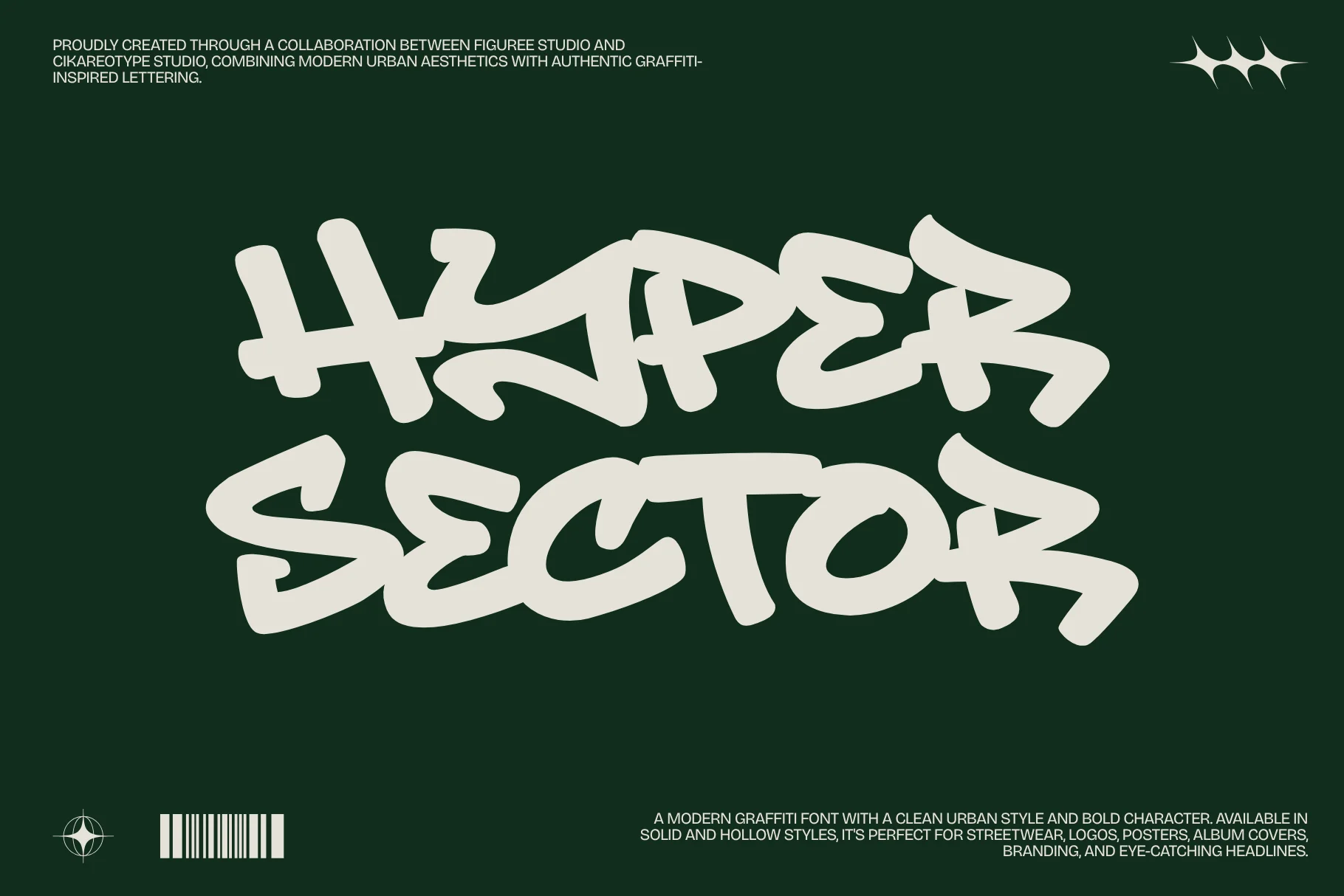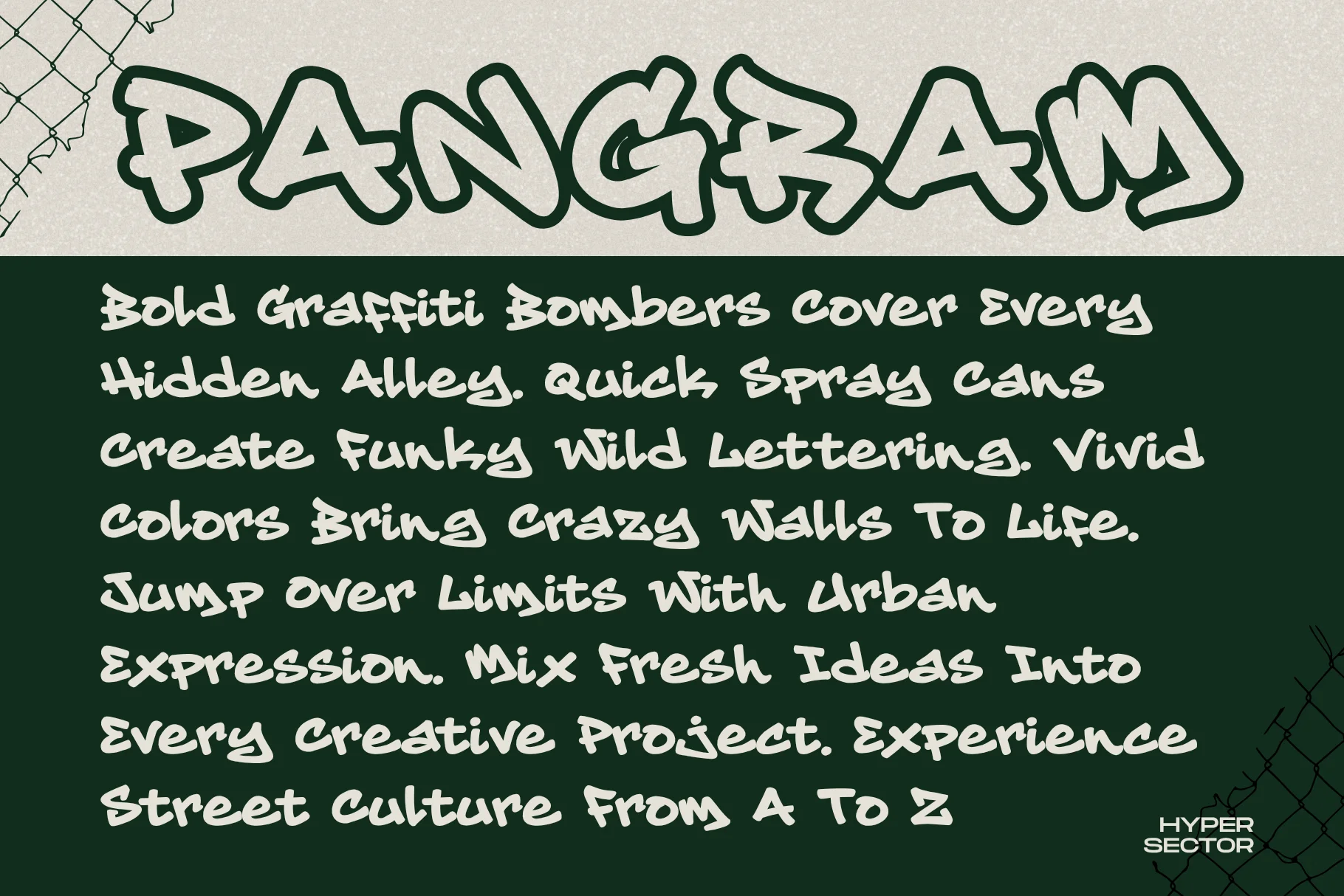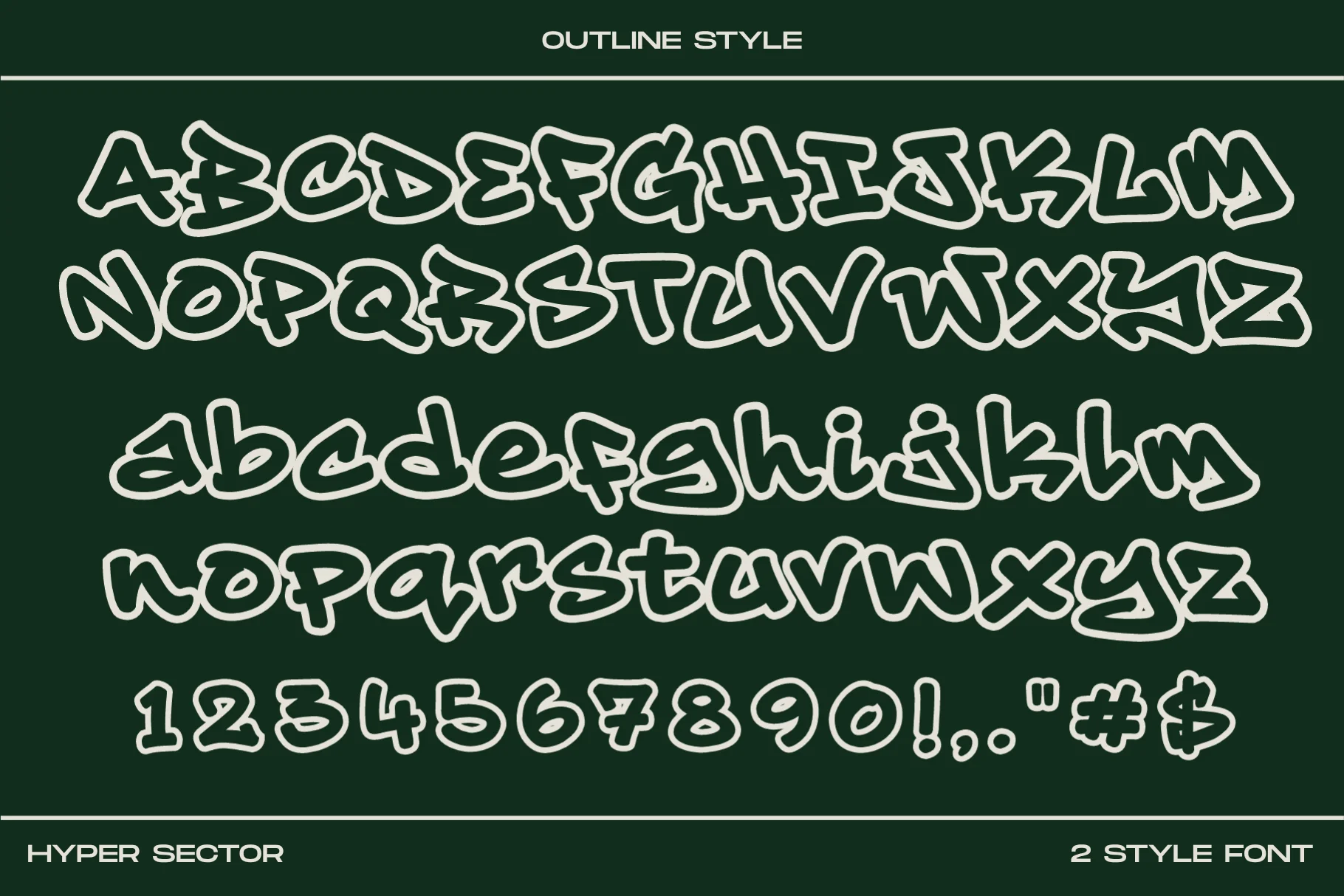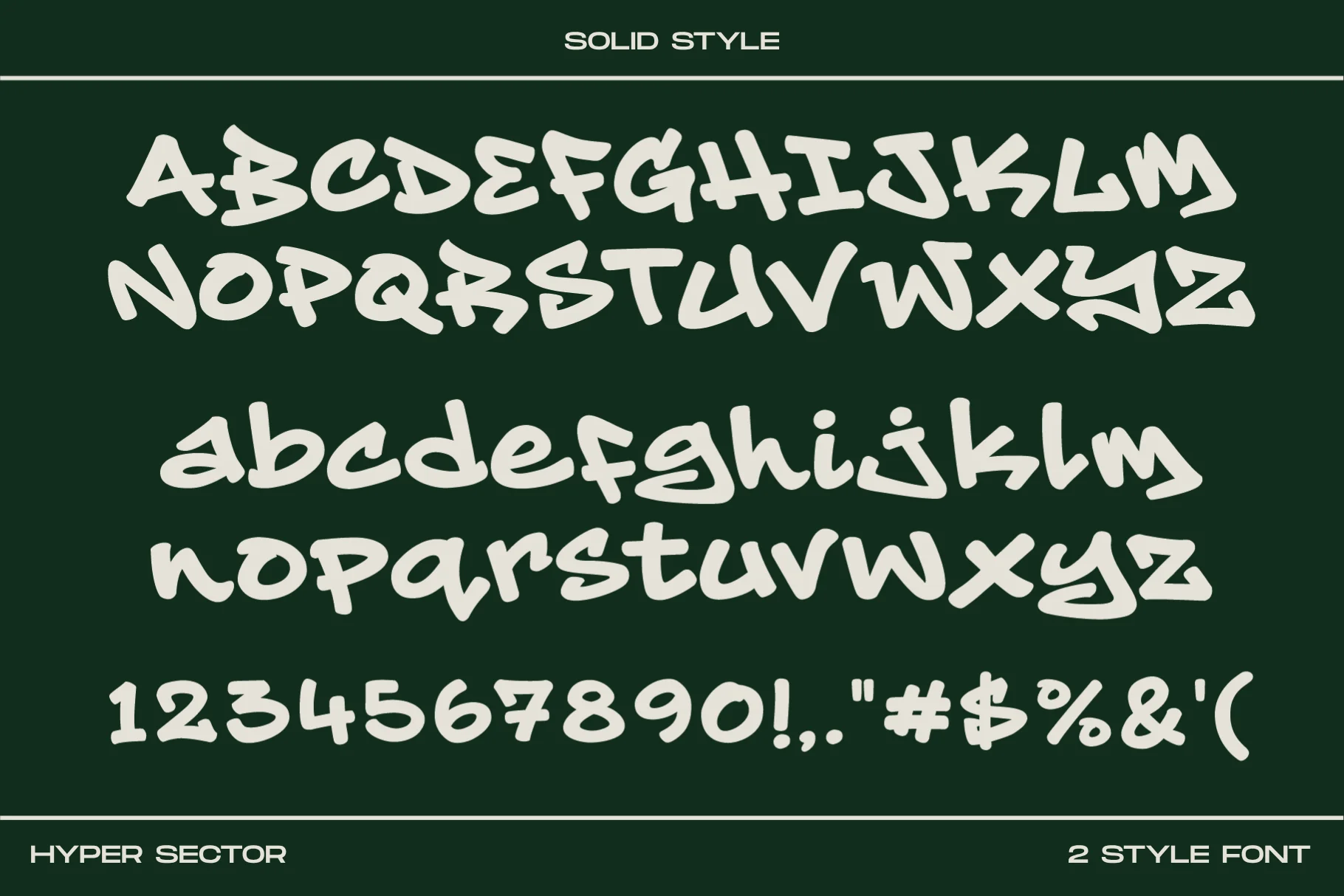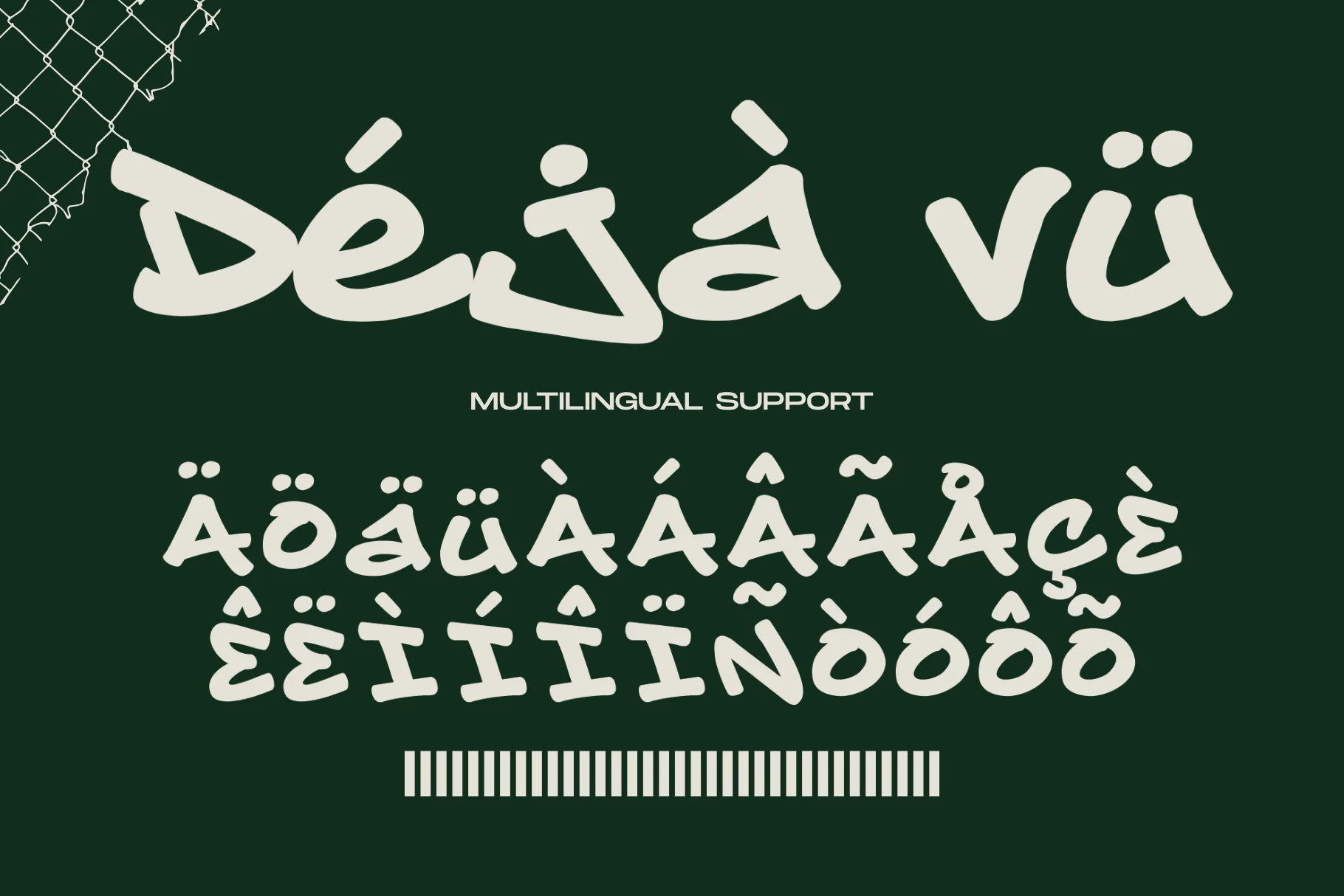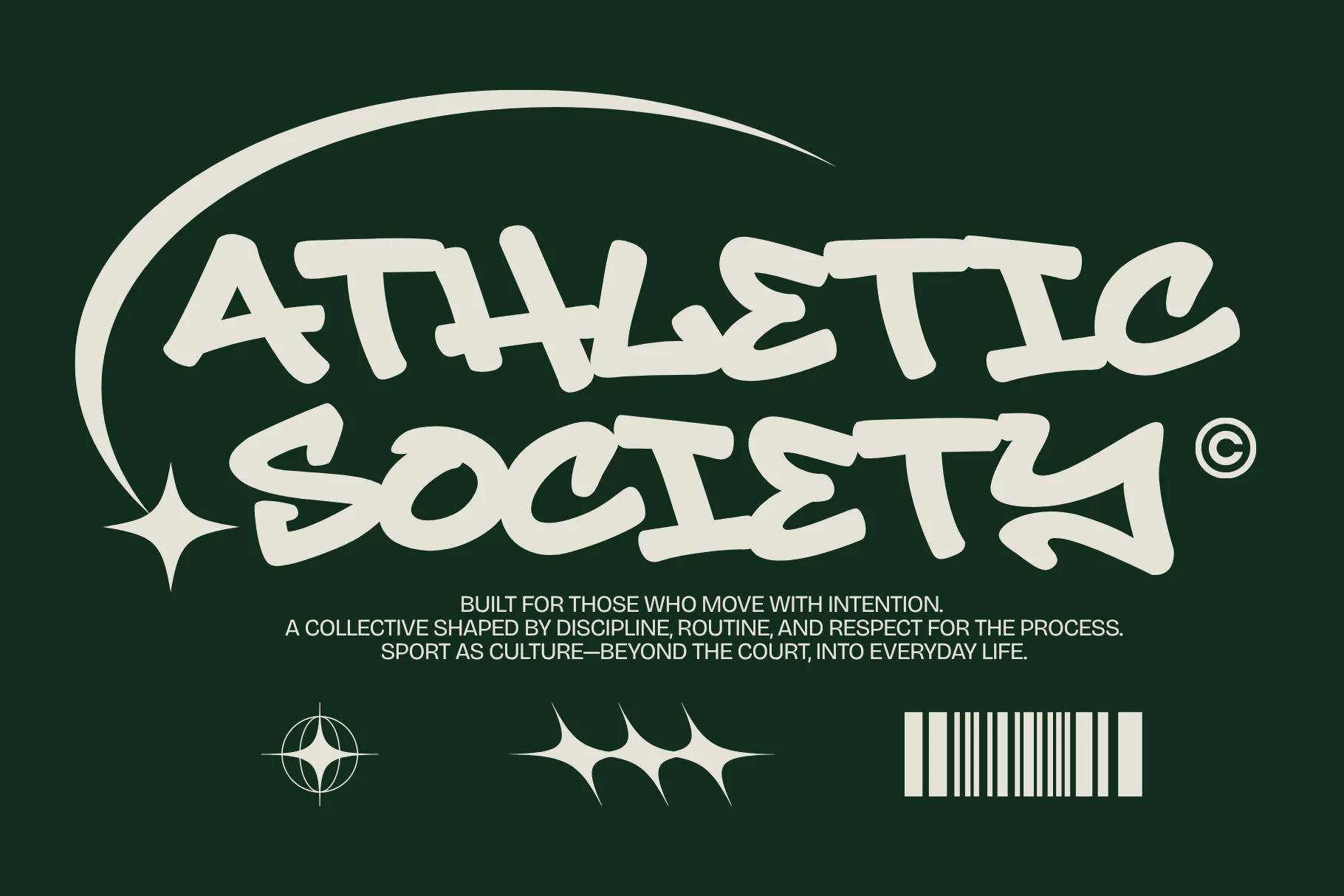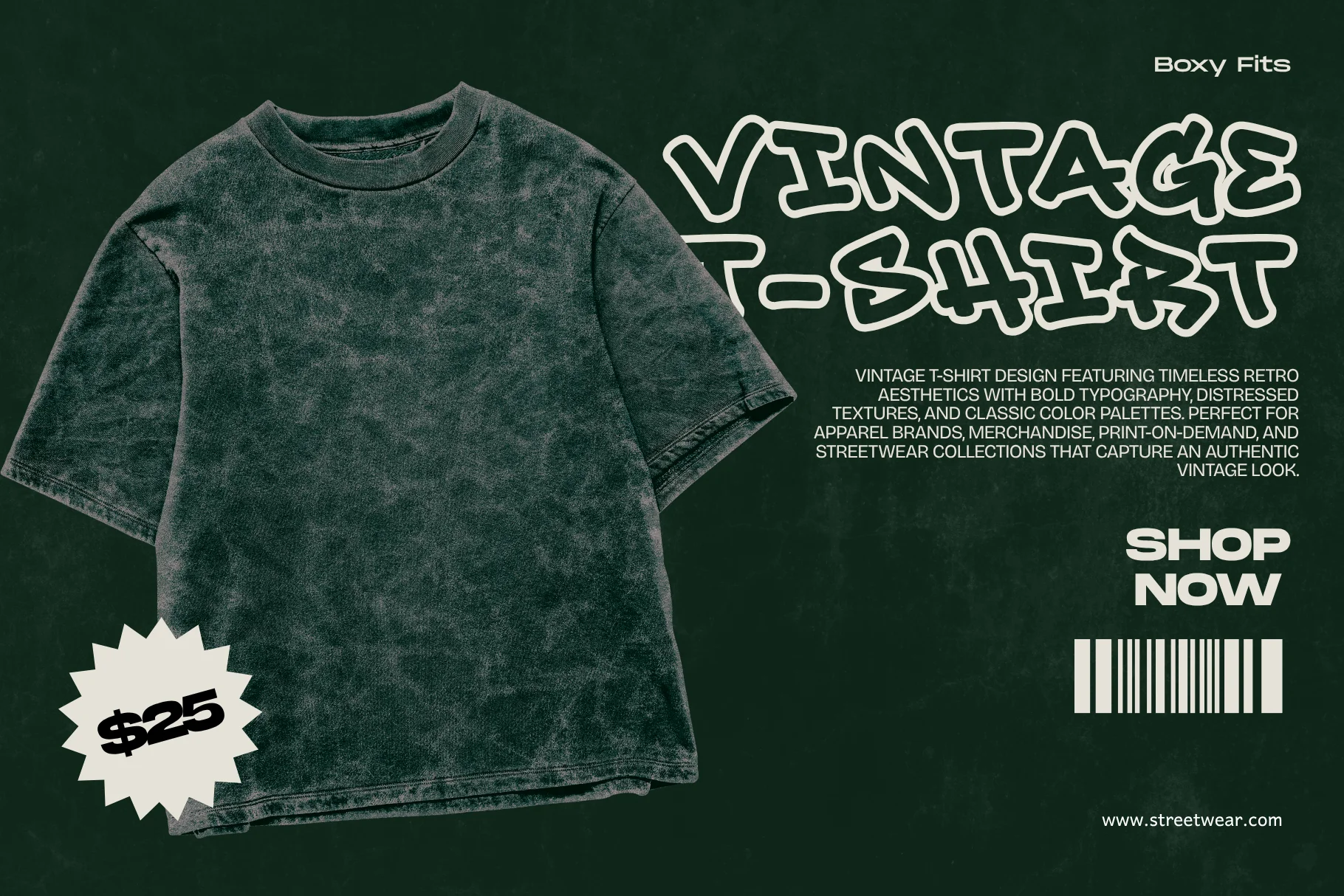
About Hyper Sector
Hyper Sector is a bold and contemporary graffiti font designed for creators who want clean urban aesthetics with a modern twist. Combining solid lettering with a striking outline version, this modern graffiti font captures the energy of street culture while delivering the precision needed for professional branding and digital design. Whether you’re creating logos, streetwear graphics, posters, album artwork, gaming visuals, or social media content, Hyper Sector graffiti font provides bold typography that instantly commands attention.
Inspired by contemporary graffiti lettering and futuristic urban design, Hyper Sector features thick geometric forms, confident proportions, and balanced spacing that create an unmistakable visual identity. This outline graffiti font offers both expressive personality and exceptional readability, making it suitable for designers who need typography that performs beautifully across digital and print media.
Unlike traditional graffiti lettering that relies heavily on drips or distressed effects, Hyper Sector graffiti font focuses on clean structure and bold outlines. The result is a professional urban graffiti font that feels modern, energetic, and highly versatile for today’s creative industries.
A Modern Graffiti Font Built for Bold Creativity
Hyper Sector graffiti font is created for designers who appreciate clean urban typography without sacrificing street-inspired personality. Every letter is carefully constructed with bold proportions that maintain strong readability while expressing authentic graffiti influence.
This modern graffiti font combines contemporary graphic design principles with urban culture, producing typography that feels equally suitable for branding, apparel, advertising, and digital content. The clean construction allows designers to create polished layouts while preserving the rebellious spirit of graffiti lettering.
Whether you’re producing fashion campaigns or YouTube thumbnails, Hyper Sector delivers typography that feels bold, modern, and instantly recognizable.
Solid and Outline Styles for Maximum Flexibility
One of the defining strengths of Hyper Sector graffiti font is the inclusion of both solid and outline letterforms. The Regular style provides bold filled typography, while the Hollow version creates striking outlined text perfect for layered compositions and eye-catching display work.
This outline graffiti font gives designers greater creative freedom. Use the solid version for impactful headlines, then combine it with the outline style to build modern layered typography, dimensional logos, or futuristic branding systems.
Because both styles share the same structure, switching between them is seamless, making Hyper Sector an incredibly flexible graffiti display font for professional design workflows.
Inspired by Modern Street Culture
Street culture continues to evolve, blending traditional graffiti with digital art, gaming, music, and fashion. Hyper Sector graffiti font reflects this evolution by combining urban inspiration with contemporary design trends.
Rather than emphasizing rough textures, this modern graffiti font embraces clean geometry and structured outlines that feel equally at home in esports branding, technology graphics, apparel collections, and creative marketing campaigns.
Its modern appearance makes Hyper Sector ideal for brands seeking an urban identity with a refined and professional presentation.
Built for Branding and Display Typography
Typography is often the first element audiences notice, making the right typeface essential for successful branding. Hyper Sector graffiti font helps designers create memorable visual identities through bold forms and clean urban styling.
This urban graffiti font performs exceptionally well across logos, product packaging, posters, event promotions, gaming graphics, music artwork, and large-scale advertising. Its balanced construction ensures consistent readability while maintaining a strong visual presence.
Whether used in print or digital environments, Hyper Sector delivers typography that is both expressive and highly functional.
Complete Character Set & Typography Features
Hyper Sector – Outlined and Modern Graffiti Font includes everything required for professional creative projects.
Uppercase Characters
Bold uppercase characters inspired by contemporary graffiti font aesthetics and modern display typography.
Multilingual Support
Supports multiple international languages, allowing this modern graffiti font to perform effectively across global branding and multilingual creative work.
Numbers & Punctuation
Includes a complete collection of numbers and punctuation to ensure your typography remains consistent across every design application.